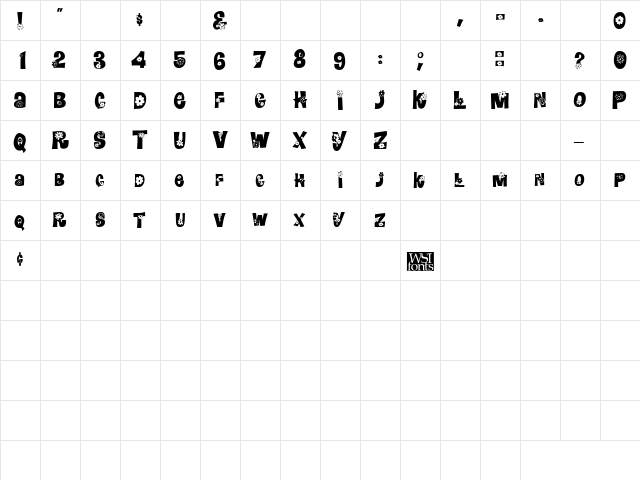
HippieDisplay Regular
Design Context for HippieDisplay Typeface
HippieDisplay is built around its visual character rather than neutral utility — its distinctive forms are designed to make an impression at display sizes.
Font Pairing: Pair with a clean neutral sans-serif for body copy to let HippieDisplay's character lead without overwhelming the composition.
Pro Tip: Treat HippieDisplay as the centrepiece of your typographic hierarchy. One strong heading set in a decorative face can carry an entire layout.